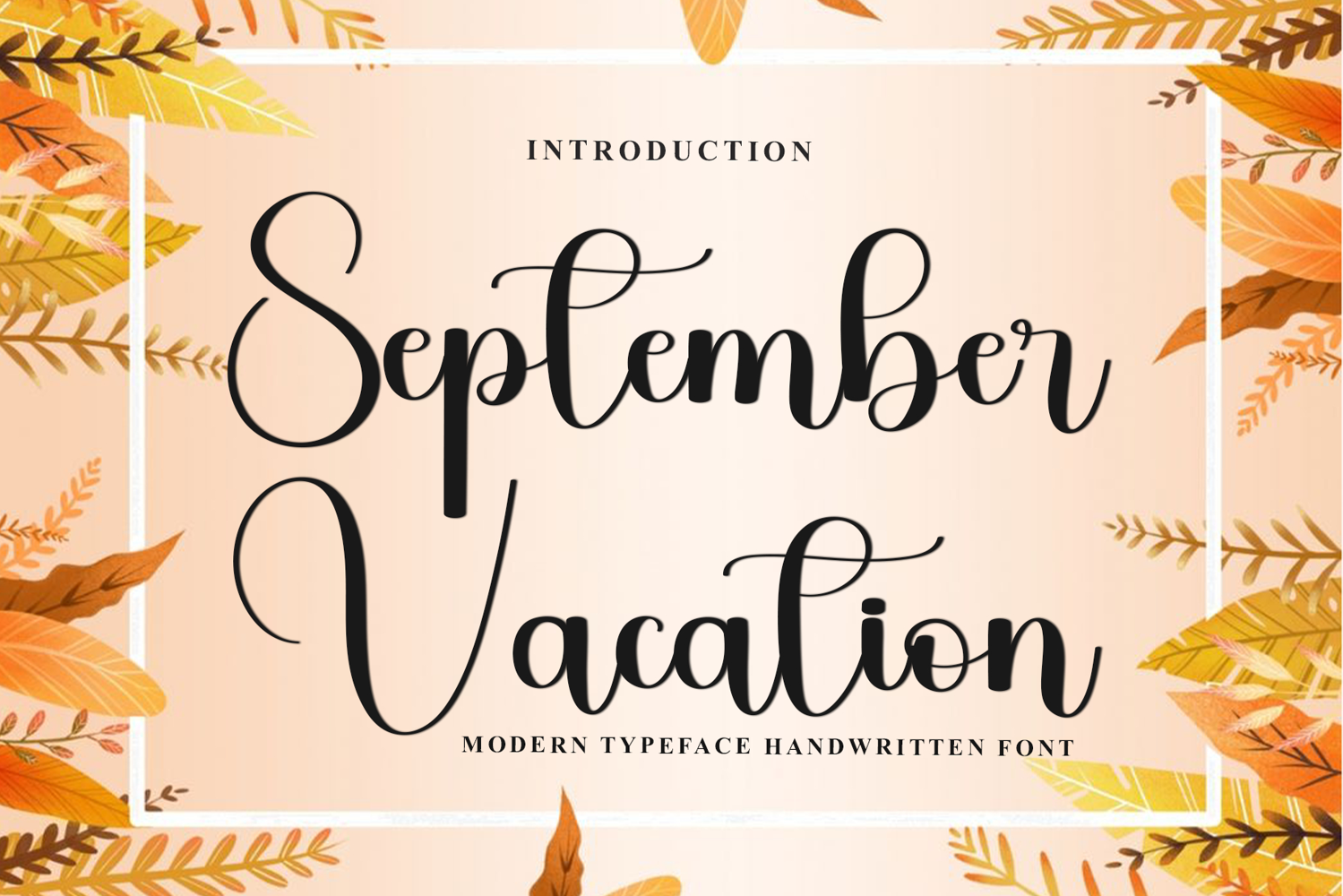
September Vacation
September Vacation is a beautiful and eye-catching font designed with a soft, unique touch. Its distinctive strokes give it a special character, making it meaningful and versatile for future use. With various characters, it’s perfect for design projects, crafts, and other creative works.